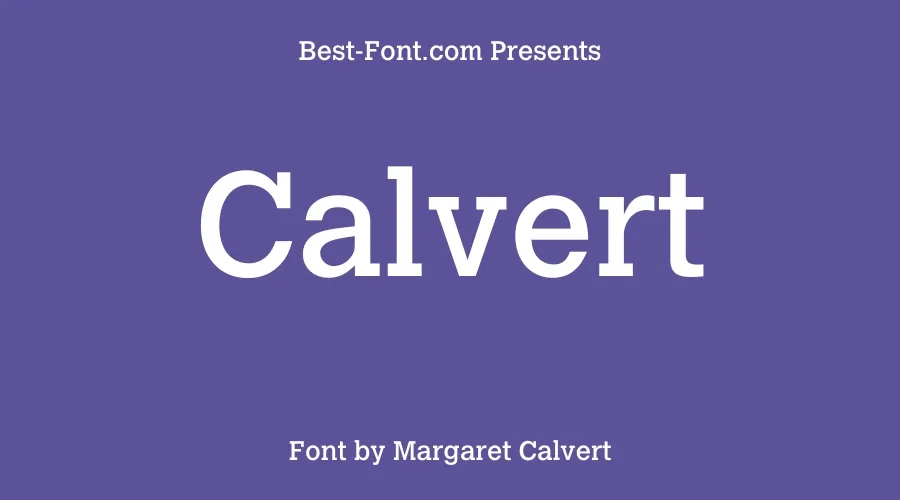
Calvert Font
About Calvert Font
Calvert Font was designed by Margaret Calvert. There is a strong modern feel to all letters, along with thick strokes. This is why modern designers prefer it. For the professional designs as well.
Using it can make a design stand out and be unique. Hence, once a designer understands its capabilities, he will use it in many designs.
In addition to bold editorial statements and graphic heavy prints, this font can also be used as a simple logo and simple branding. Besides, you can involve it as a generator tool on your PC for making new plans.
Your designs will stand out and be unique with this new type. Bold is a subfamily of the font. The letters of this font demonstrate its versatility. With full concentration and experience, each letter has been created. Therefore, its letters didn't contain any errors.